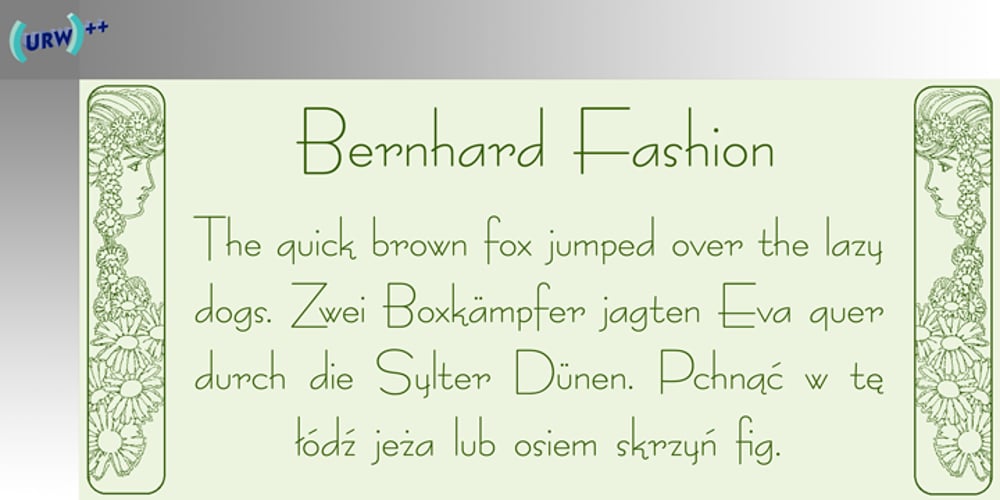
Bernhard Fashion Font Family was designed by Lucian Bernhard and published by URW Type Foundry. Bernhard Fashion contains 1 styles and family package options. Bernhard Fashion is a fine line sans serif typeface designed by Lucian Bernhard in 1929. Use the Bernhard Fashion font for posters, book covers, promotional material and packaging.